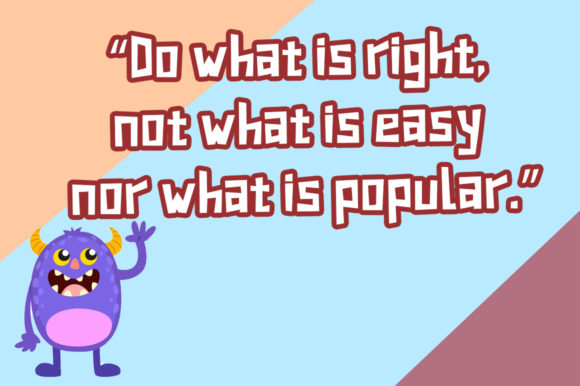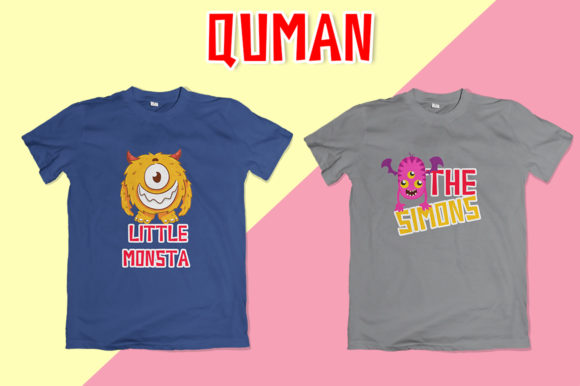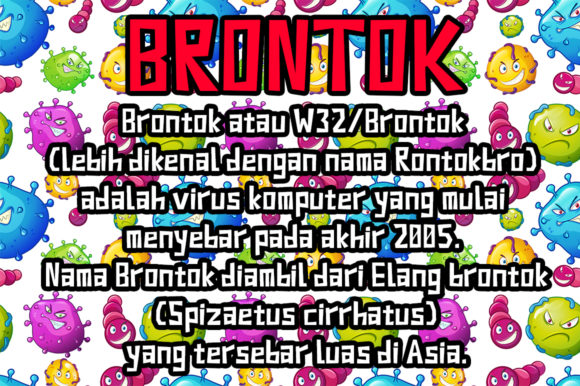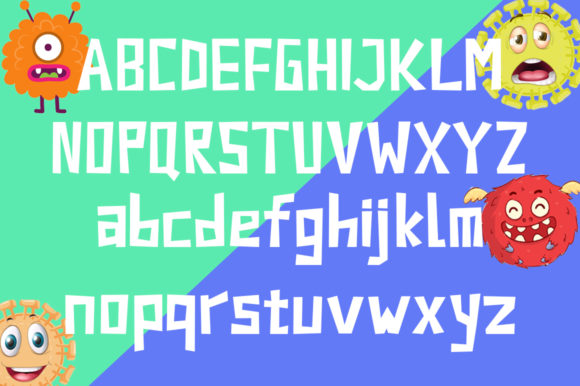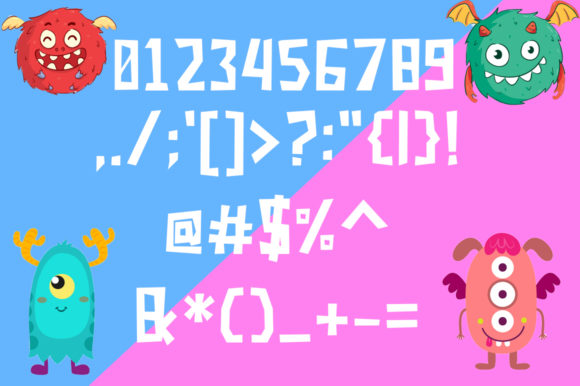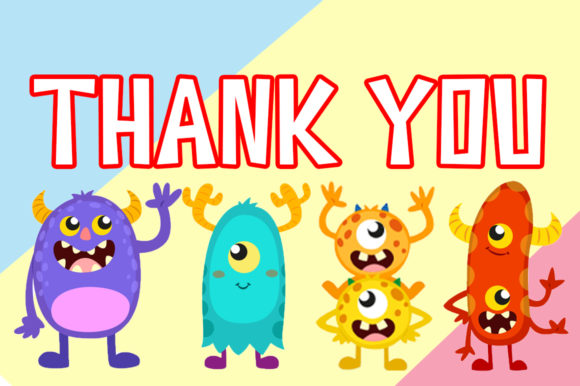
Introduction to Quman Font
Quman is a striking display font with a unique cartoon style.
Get inspired by its playful and whimsical charm .
Key Features of Quman Font
Why Choose Quman Font?